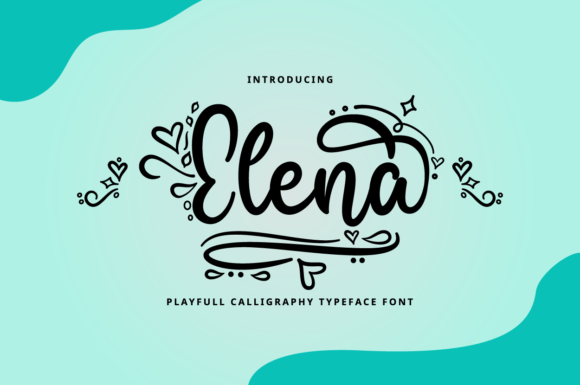
Prepare to be captivated by Elena Font, a graceful script font that will transform your creative visions into captivating realities. This exquisite font, crafted by the talented hands of Soegih Artwork, embodies elegance and fluidity, inviting you to embrace its ravishing style and unleash your artistic flair.
Elena Font is more than just a font; it's an artistic gateway, opening doors to a world of visual wonders. Picture the allure of handwritten wedding invitations, their edges adorned with Elena Font's delicate strokes, carrying the promise of a love story waiting to unfold. Envision the charm of stationary art, its lines dancing across the page, inviting you to embark on a journey of self-expression. Dive into the world of social media, where Elena Font breathes life into your posts, captivating your audience with its eye-catching allure.
Elena Font possesses a versatility that adapts seamlessly to your creative endeavors. Let it guide your hand as you design logos that radiate sophistication and leave a lasting impression. Craft business cards that exude professionalism and speak volumes about your attention to detail. Create marketing materials that resonate with your audience, their eyes drawn to the elegance of Elena Font's curves and flourishes.
Beyond its aesthetic beauty, Elena Font is a font of convenience. Encoded with PUA, it grants you effortless access to a treasure trove of glyphs and swashes, empowering you to unleash your creativity without boundaries. Say goodbye to tedious character searches and embrace the freedom to explore your artistic vision fully.
Elena Font is your gateway to a world of boundless creativity, where your imagination takes center stage and your artistic dreams come to life. Its delicate strokes and flowing lines will elevate your designs, captivating your audience and leaving them spellbound. Seize the opportunity to own this remarkable font and unlock the true potential of your creative genius.